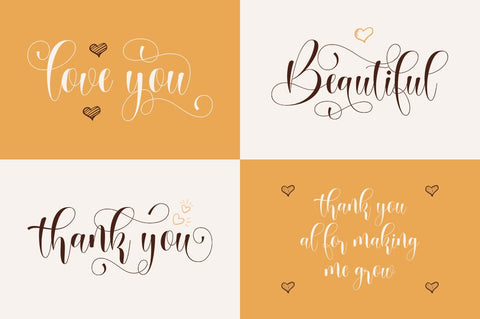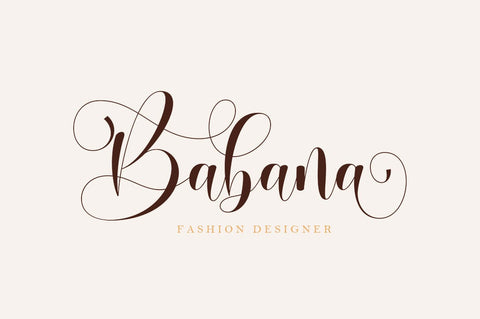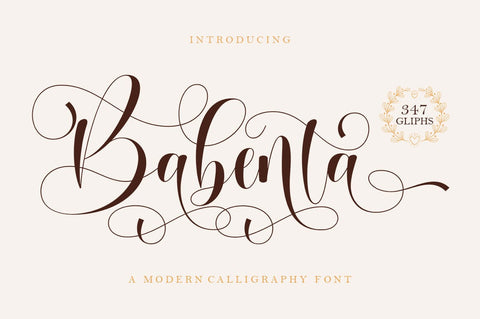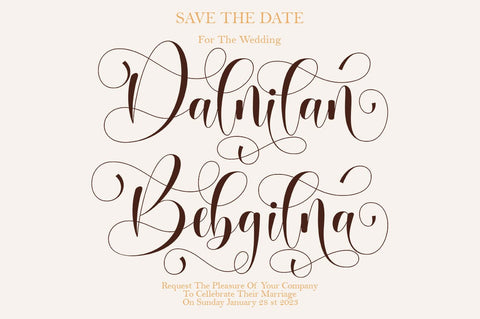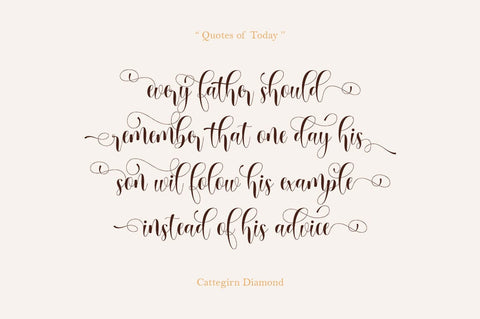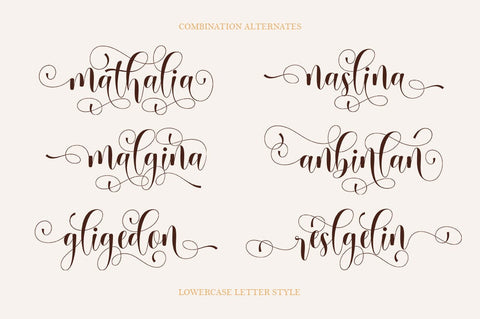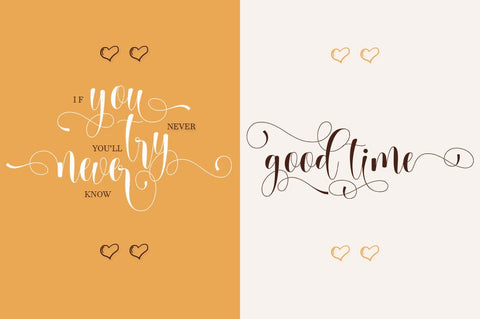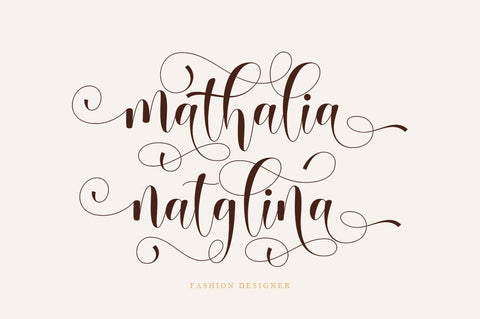
Babenta - Modern Calligraphy Font
Babenta is a smooth, elegant and flowing handwritten font. It has a beautiful and balanced character and as a result, fits into a wide set of designs. Babenta features varied baselines, smooth lines, beautiful glyphs, and stunning alternatives. Add to your most creative ideas and watch how they come to life!